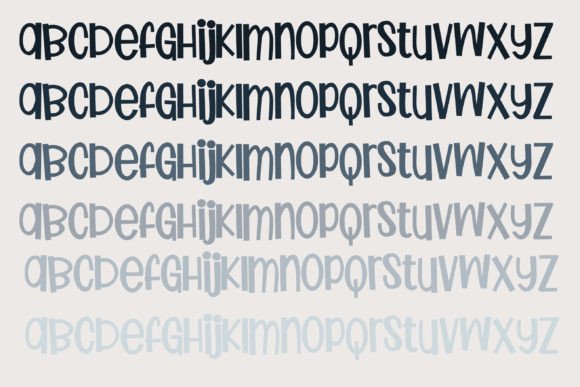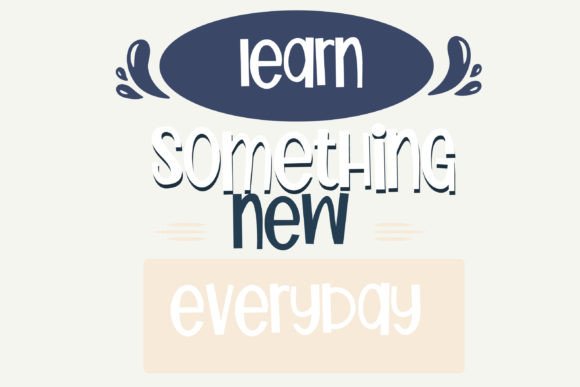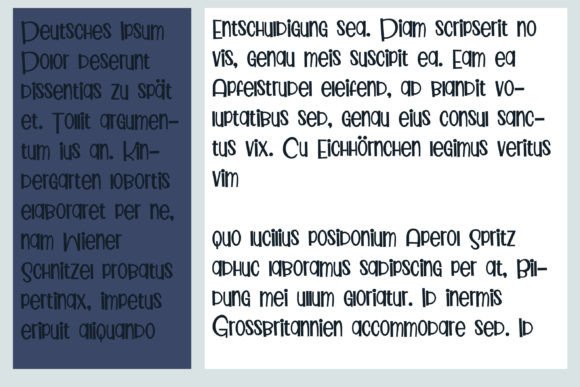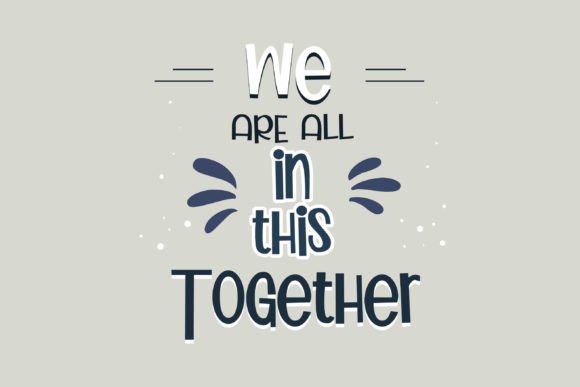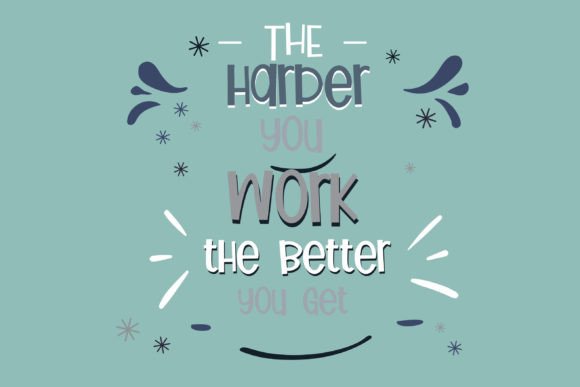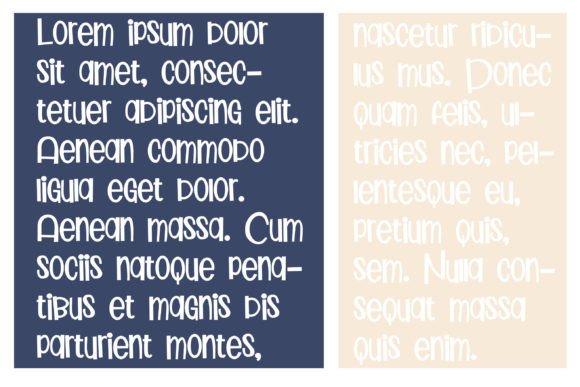
Discover the Delightful Correctamundo Font: A Youthful and Whimsical Sans Serif
Are you on the hunt for a font that exudes youthfulness and playfulness? Look no further than the Correctamundo Font! This hand-written sans serif font is perfect for designers and crafters looking to add a touch of whimsy to their projects. With its unique charm and versatility, Correctamundo Font is sure to become a favorite in your font collection.
A Hand-Written Sans Serif like No Other
Correctamundo Font is a one-of-a-kind, hand-written sans serif font that boasts a youthful and carefree vibe. Its hand-crafted nature gives it a personal touch that’s hard to find in digital fonts. The font’s sans serif design makes it clean and easy to read, while its hand-written flair adds a dash of personality and whimsy.
Perfect for a Wide Spectrum of Applications
One of the best things about Correctamundo Font is its incredible versatility. This font is perfect for a wide range of applications, from greeting cards and headlines to posters, flyers, and more. Its playful and youthful nature makes it an excellent choice for:
- Greeting cards: Add a personal touch to your greeting cards with Correctamundo Font’s whimsical and hand-written charm.
- Headlines: Make your headlines stand out with this font’s bold and playful personality.
- Posters and flyers: Use Correctamundo Font to create eye-catching posters and flyers that are sure to grab attention.
- Social media graphics: Add a touch of whimsy to your social media graphics and make them stand out from the crowd.
- Branding and packaging: Use Correctamundo Font to create unique and memorable branding and packaging designs.
Why You’ll Love Correctamundo Font
So, what makes Correctamundo Font so special? Here are just a few reasons why you’ll love adding this font to your projects:
- Unique and playful personality: Correctamundo Font has a one-of-a-kind personality that’s sure to make your projects stand out.
- Easy to read: Despite its hand-written nature, Correctamundo Font is clean and easy to read, making it perfect for body text and headlines.
- Versatile: This font is perfect for a wide range of applications, from digital designs to print materials.
- Hand-crafted with love: Correctamundo Font is carefully crafted with attention to detail, giving it a personal touch that’s hard to find in digital fonts.
Tips for Using Correctamundo Font
To get the most out of Correctamundo Font, here are a few tips to keep in mind:
- Use it with confidence: Don’t be afraid to experiment with Correctamundo Font – its unique personality is sure to shine through in your designs.
- Pair it with contrasting fonts: Pair Correctamundo Font with contrasting fonts to create visual interest and add depth to your designs.
- Experiment with colors and textures: Add an extra layer of personality to your designs by experimenting with different colors and textures.
In conclusion, Correctamundo Font is a delightful and versatile font that’s perfect for designers and crafters looking to add a touch of whimsy to their projects. With its unique personality, ease of use, and hand-crafted nature, this font is sure to become a favorite in your font collection. So why wait? Add Correctamundo Font to your projects today and experience the magic for yourself!